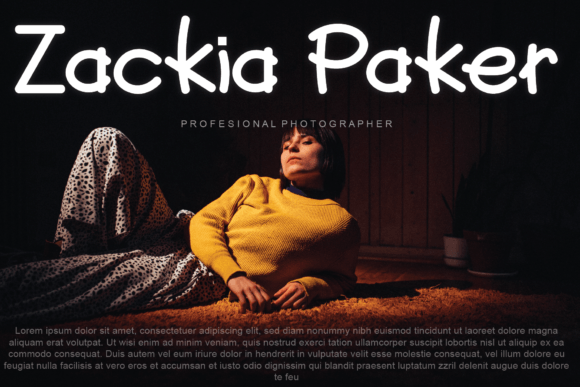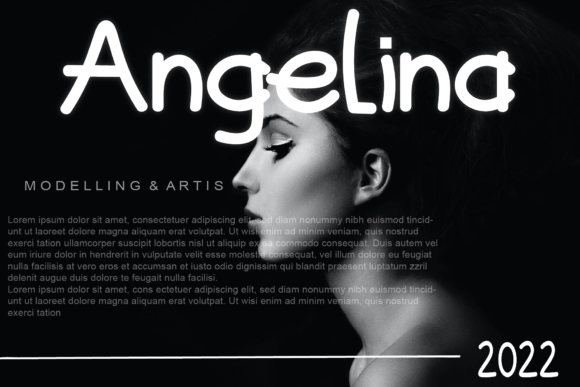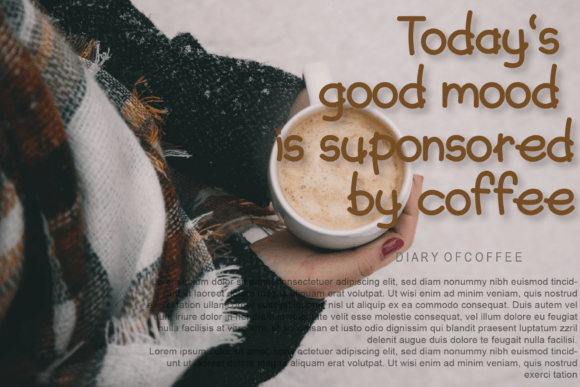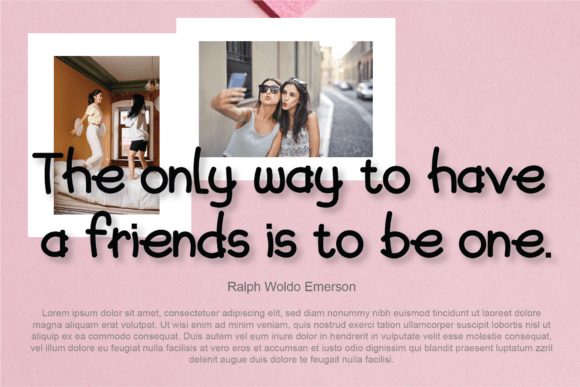
Introducing Back for You Font: The Perfect Addition to Your Design Arsenal
In the world of design, fonts play a crucial role in conveying the tone and personality of a brand or project. If you’re on the lookout for a font that exudes a sense of modernity, friendliness, and approachability, look no further than the Back for You font. This simple yet adorable handwritten font is designed to elevate your designs, making it perfect for a wide range of applications, from greeting cards and business cards to logos, product packaging, and advertisements.
The Charm of Back for You Font
Back for You font boasts a modern feel that sets it apart from more traditional fonts. Its handwritten nature gives it a personal and relatable touch, making it ideal for designers who want to infuse their work with a sense of warmth and personality. The font’s simplicity ensures that it remains versatile and easy to read, while its cute and cheerful vibe adds a playful twist to any design.
One of the standout features of the Back for You font is its incredible versatility. Whether you’re working on a greeting card, a business card, a logo, product packaging, an advertisement, or a quote, this font is sure to make your design look stunning. Its adaptability makes it a valuable addition to any designer’s toolkit, as it can seamlessly transition between various projects and themes.
Greeting Cards and Stationery
For those who love creating personalized greeting cards and stationery, the Back for You font is a dream come true. Its cheerful and modern feel adds a fresh twist to traditional card designs, making them perfect for birthdays, holidays, or just because. The font’s readability and charm ensure that your message will be conveyed with style and personality.
Business Cards and Logos
When it comes to business cards and logos, making a lasting impression is key. The Back for You font can help you achieve just that. Its unique blend of modernity and approachability makes it perfect for businesses looking to establish a friendly and approachable brand identity. Whether you’re a freelancer, a small business owner, or a large corporation, this font can help you stand out from the crowd.
Product Packaging and Advertisements
In the world of product packaging and advertisements, grabbing the consumer’s attention is crucial. The Back for You font, with its cheerful and eye-catching vibe, is designed to draw people in. Whether you’re launching a new product or promoting an existing one, this font can help you create packaging and ads that are not only visually appealing but also memorable.
Why Choose Back for You Font?
So, what makes the Back for You font such a great choice for designers and crafters? Here are a few reasons:
- Versatility: Its adaptability makes it suitable for a wide range of design projects.
- Readability: Despite its decorative nature, the font remains easy to read, making it perfect for both short and long texts.
- Uniqueness: The font’s modern and cheerful feel sets it apart from more traditional fonts, allowing your designs to stand out.
In conclusion, the Back for You font is a fantastic addition to any designer’s toolkit. Its unique blend of simplicity, modernity, and charm makes it perfect for a wide range of projects, from greeting cards and business cards to logos, product packaging, and advertisements. Whether you’re a professional designer or a crafter looking to add a personal touch to your creations, this font is sure to exceed your expectations. So why wait? Explore the endless design possibilities with the Back for You font today and take your designs to the next level!